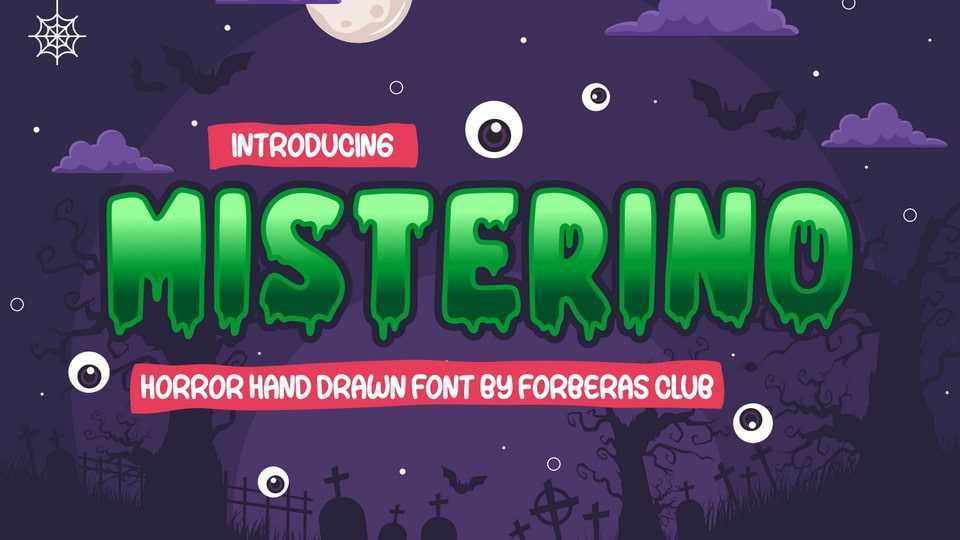
Download Misterino font, a cool and spooky display typeface. Whether you use it for cartoon related designs, children games or just any creation that requires a lovely touch, this font will be an amazing choice.